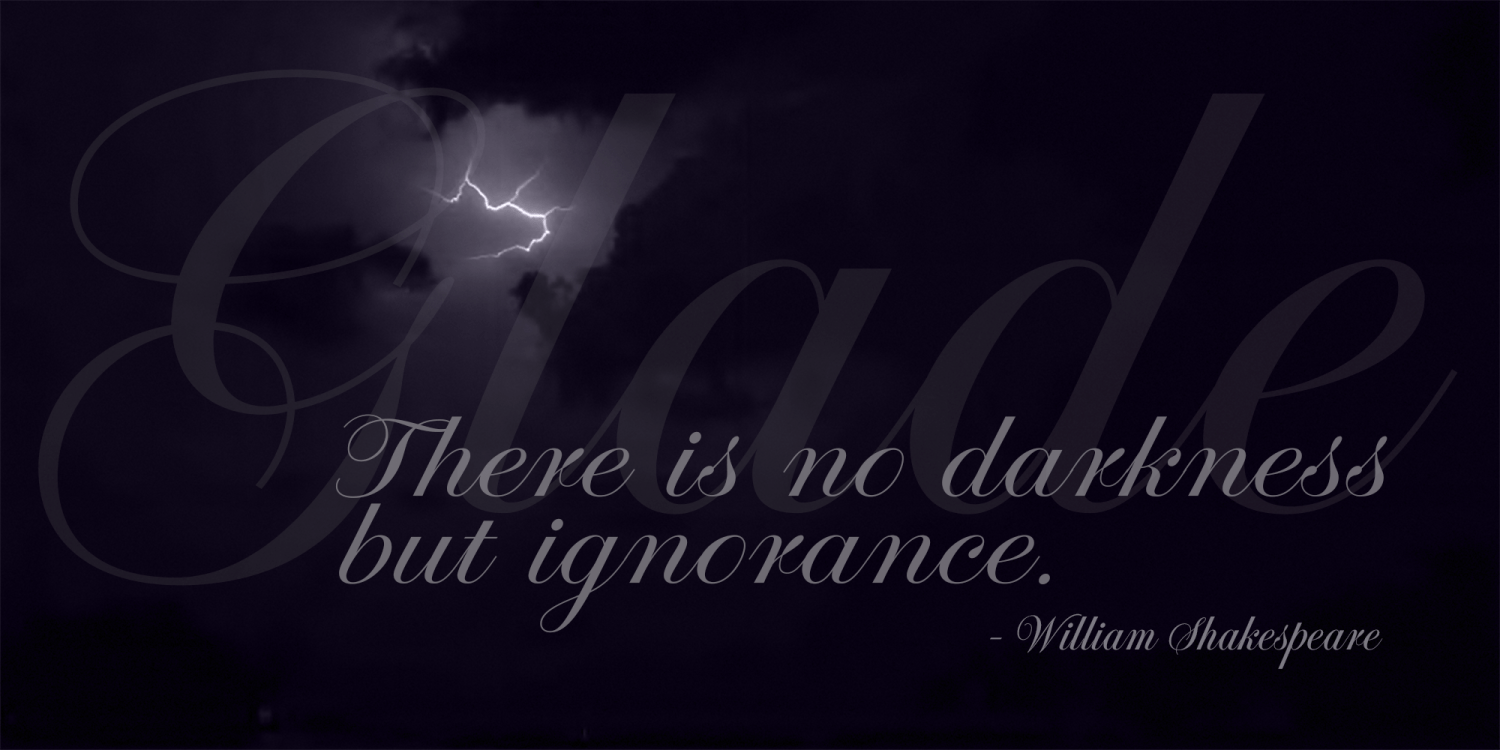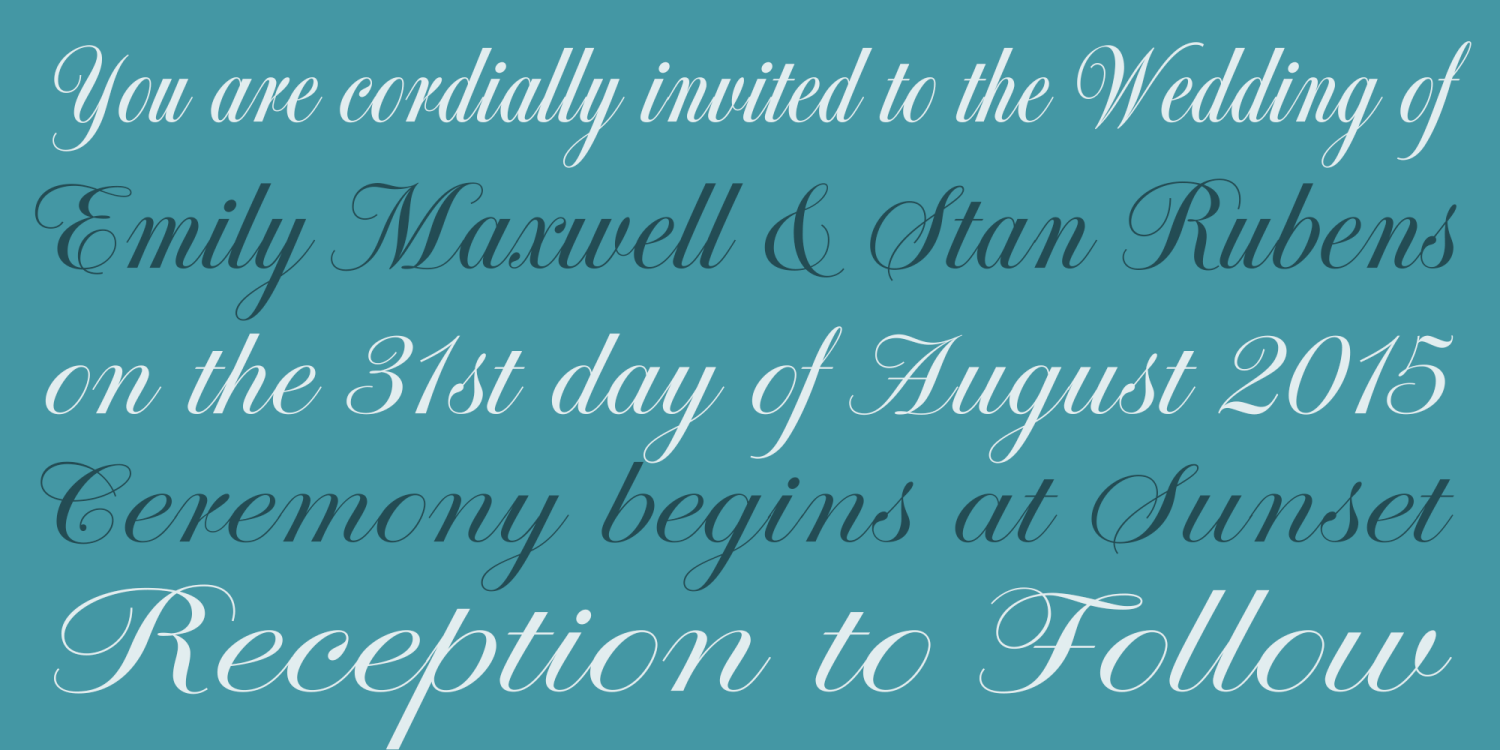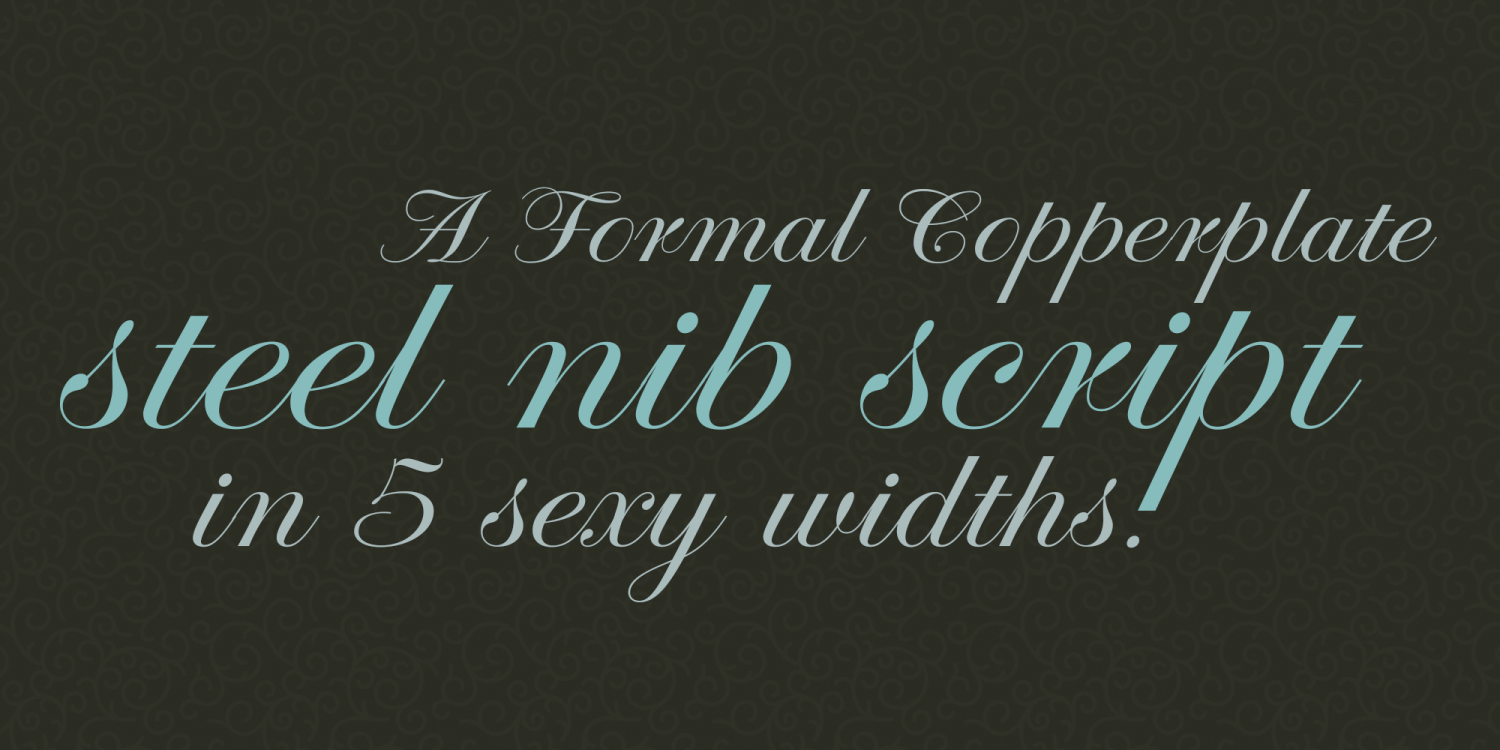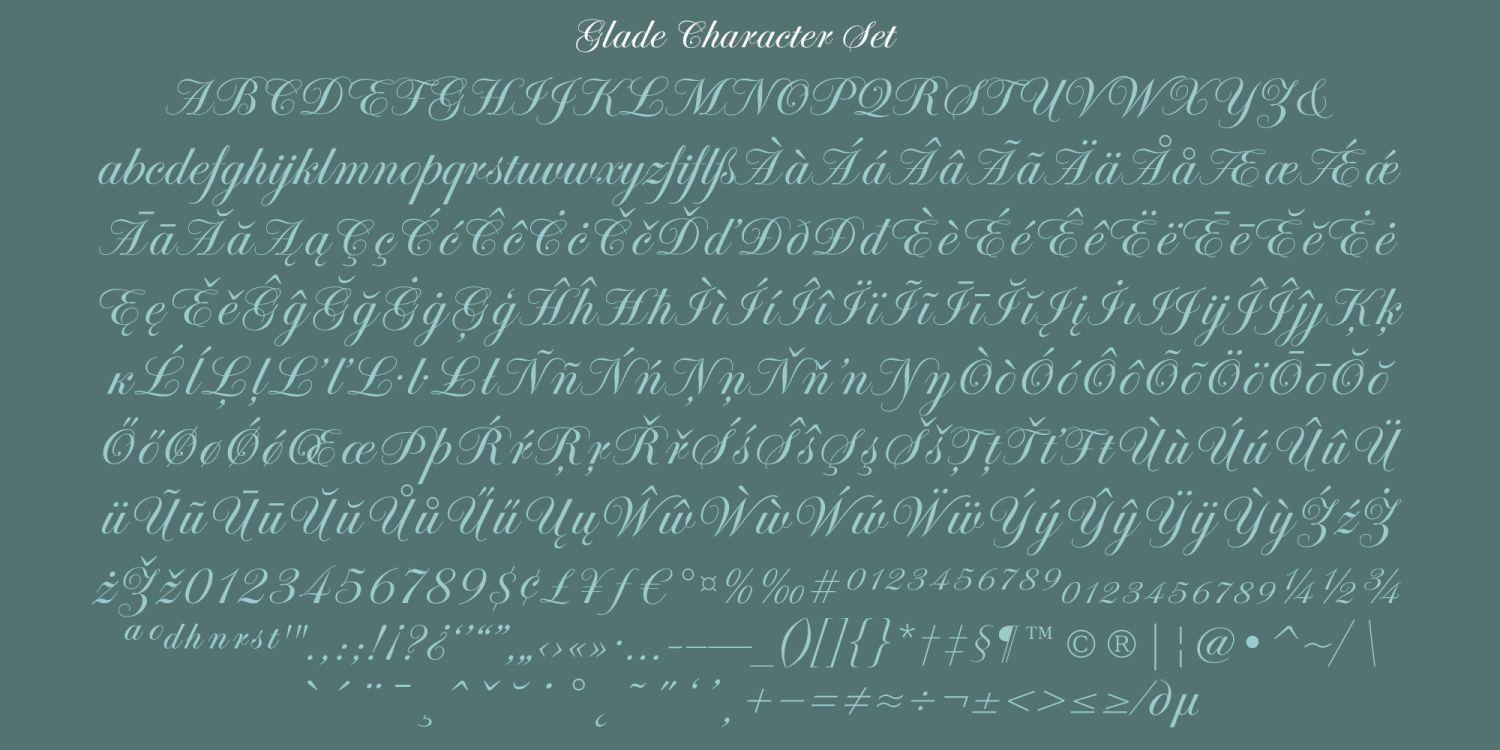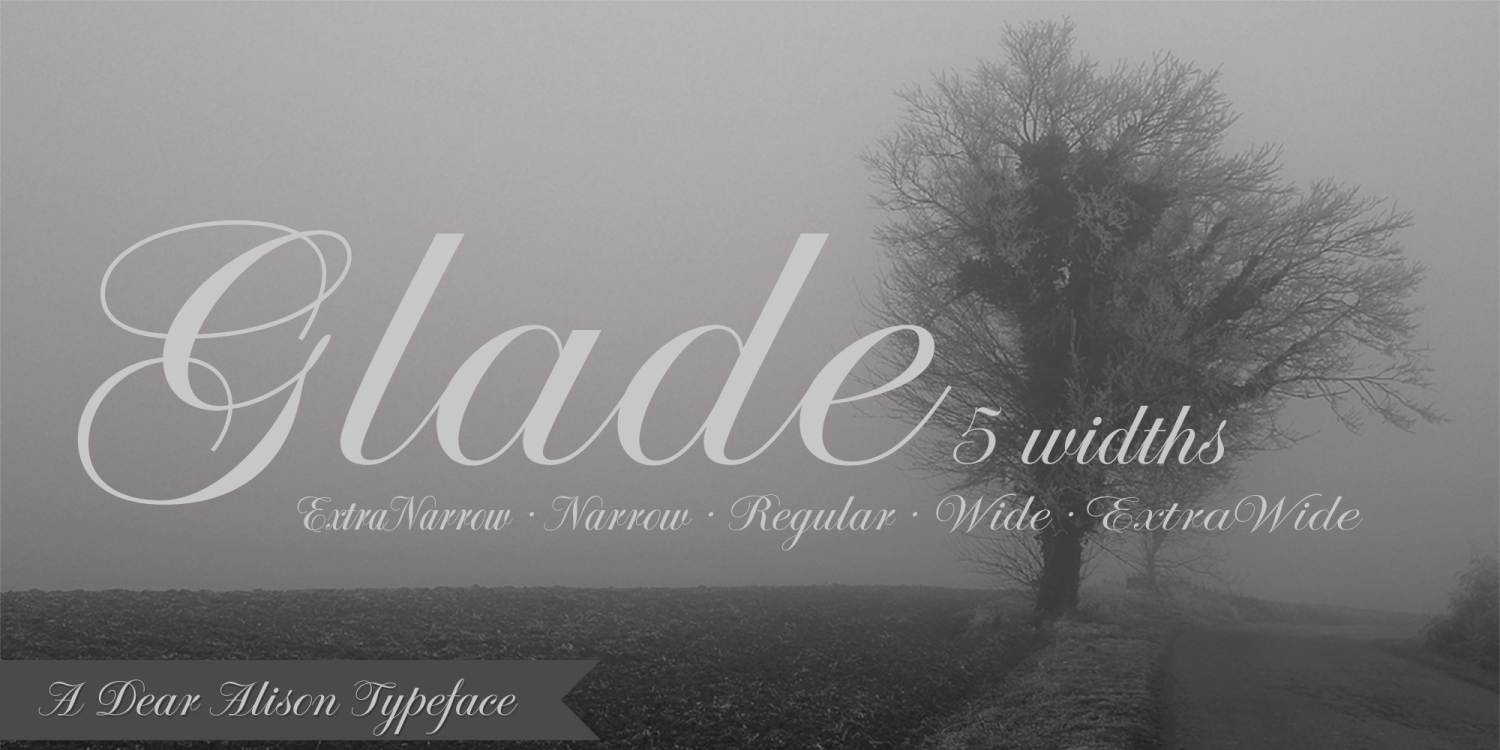
Glade
About Glade
My latest typeface is a formal, copperplate script named Glade. Beginning as a project for a client who wanted several widths of a formal script style, the project never saw fruition. However, it did get me excited about the idea of a width family of…